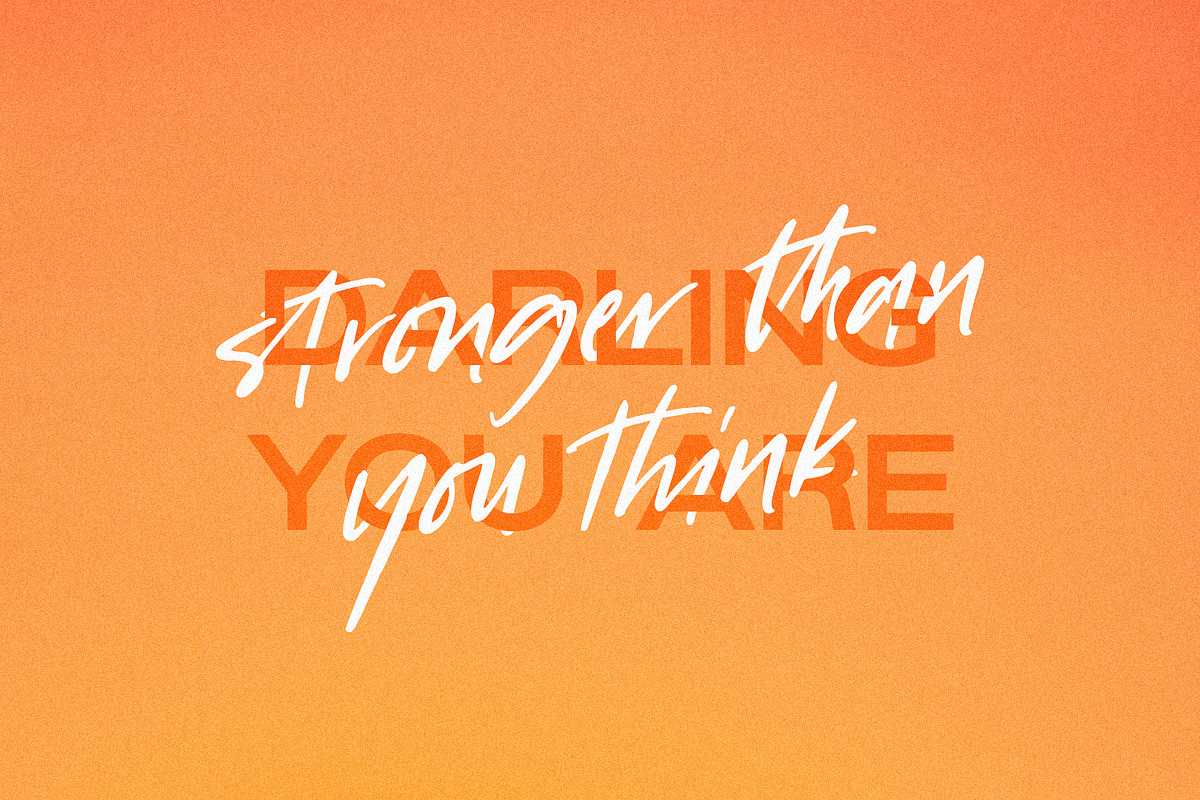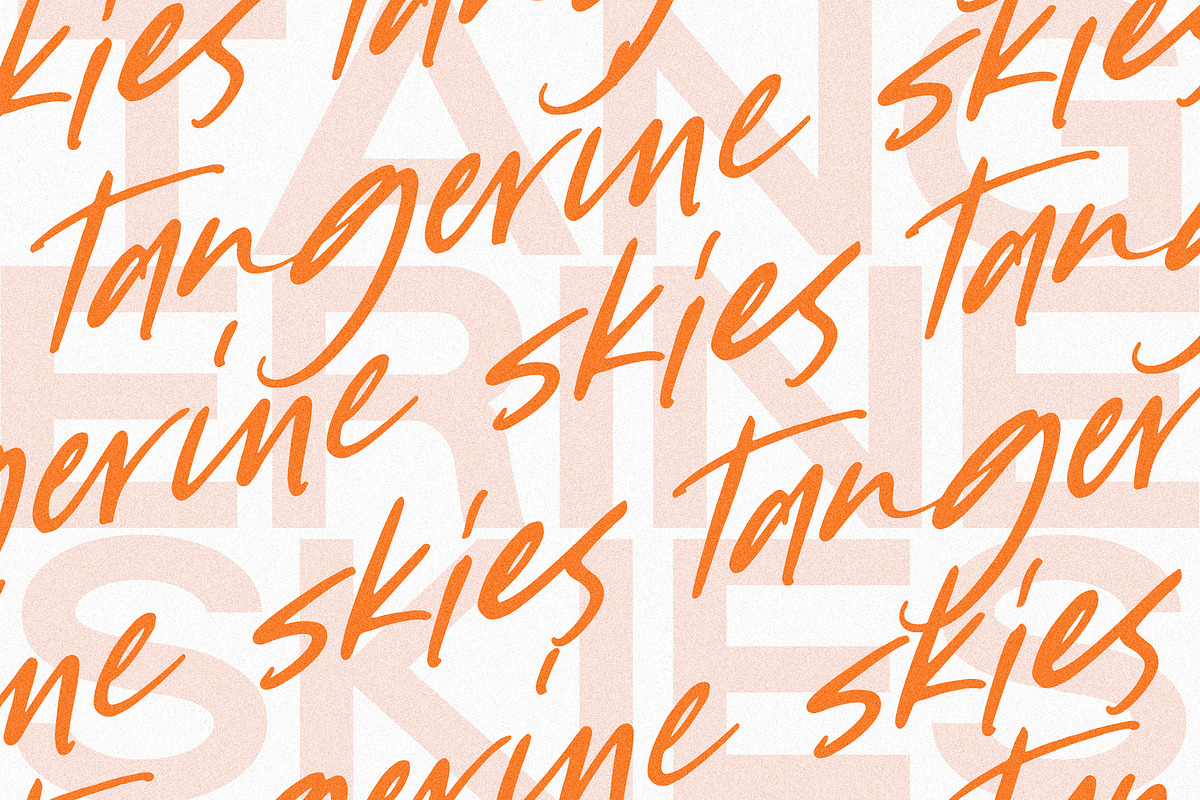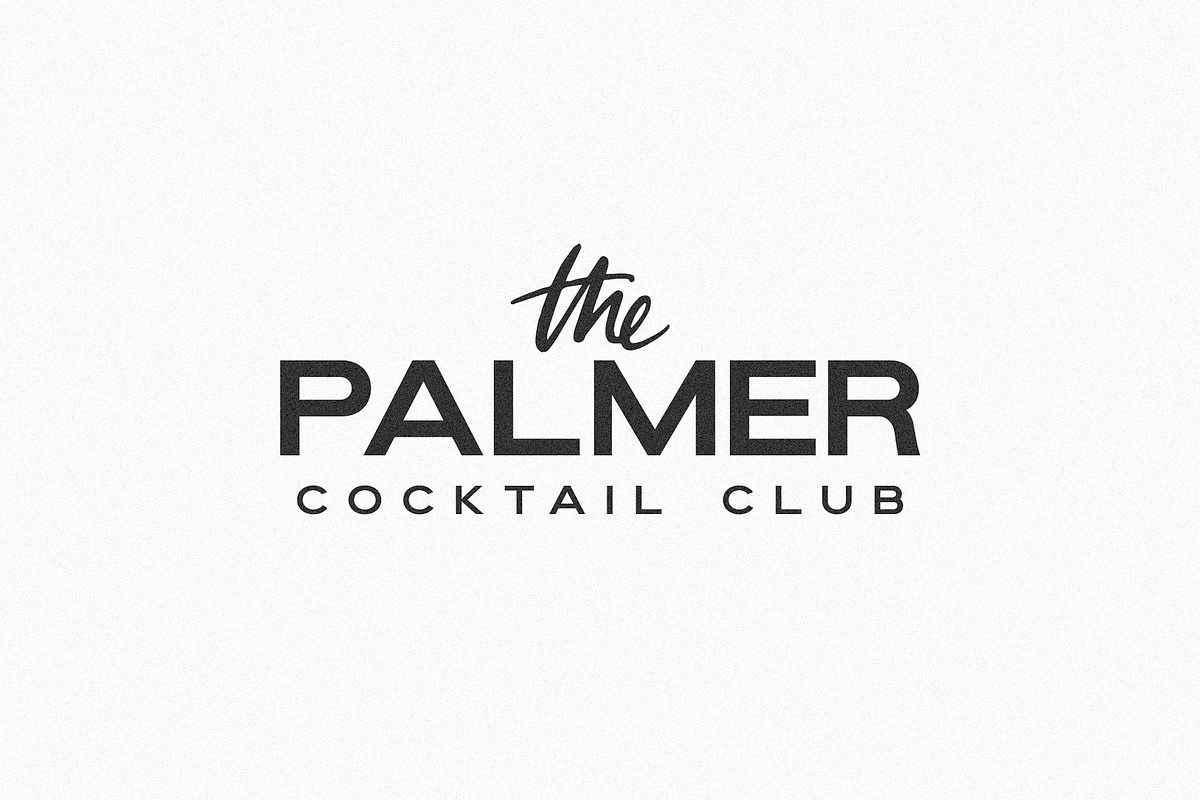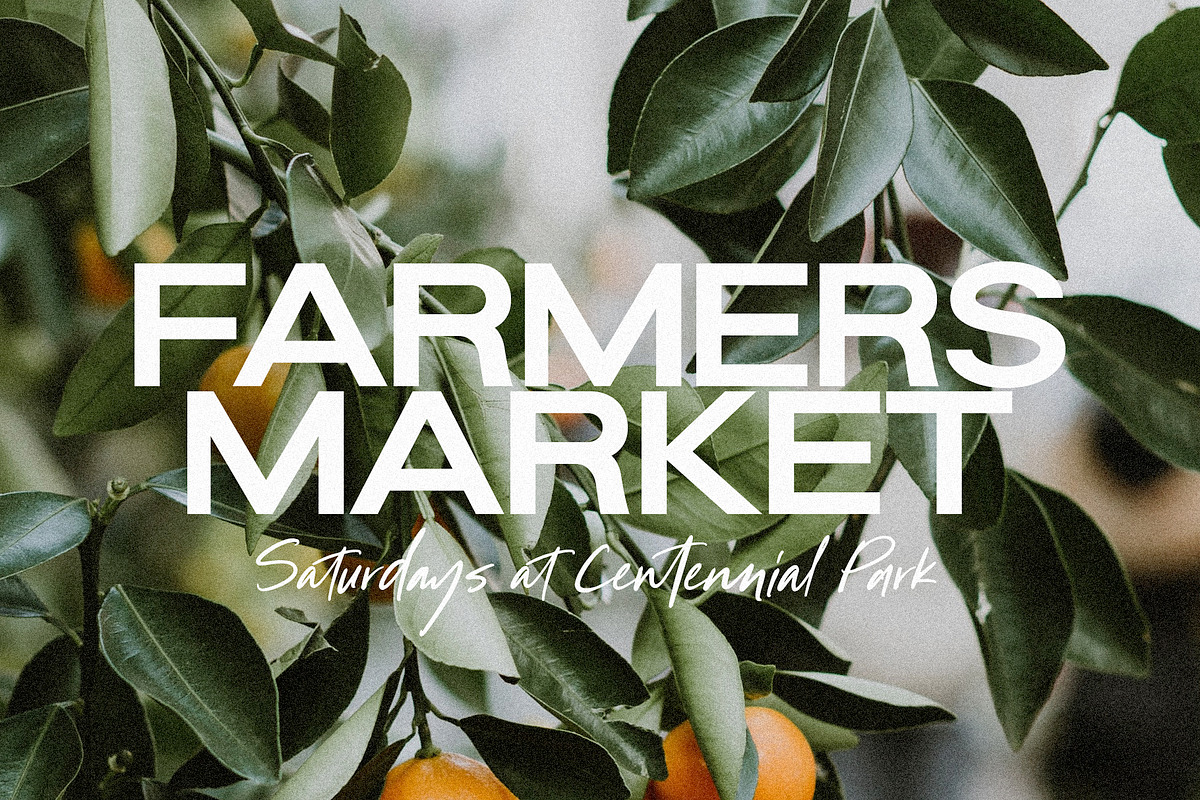
Tangerine Skies Font Duo
Tangerine Skies is a beautiful designer font duo that makes for gorgeous logos, posters, wedding invitations, blog posts, social media, and more!
I love using them together with layer masks in Photoshop, so it looks like the script is running through the lines of the sans serif. I prefer setting the sans tracking narrow at -20 (see "Farmer's Market" sample), or wide at 330 for two totally different feels.
Tangerine Skies Script includes over 70 ligatures to make everything look totally hand-done, PLUS alternates for each letter.
You'll also get Western and Central European language support.
- Upper + Lowercase Letters w/ alternates (script)
- Uppercase letters (sans)
- 70+ Ligatures